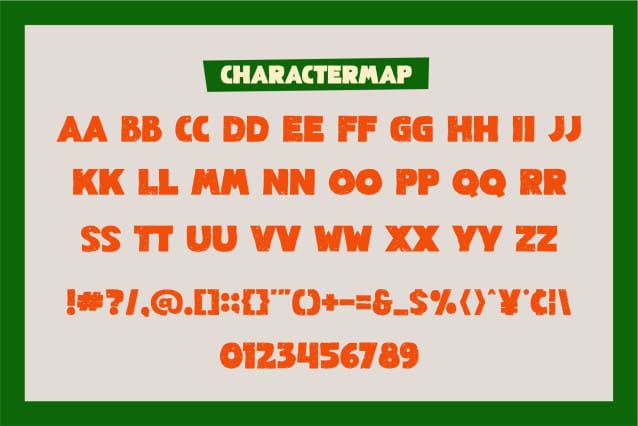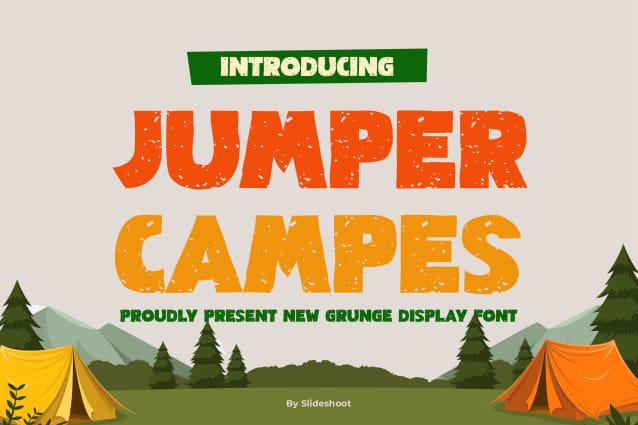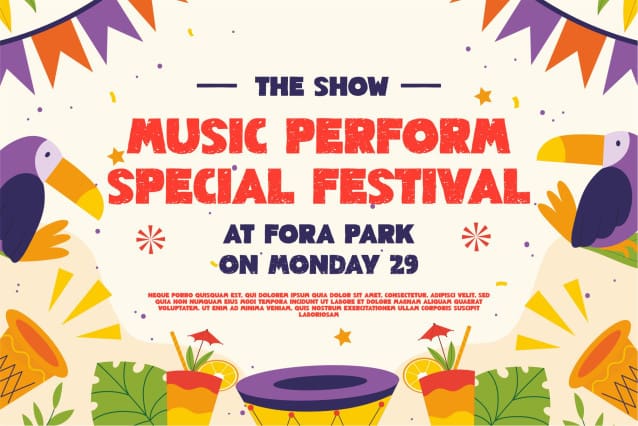
Jumper Campes Font
Jumper Campes Bold Unique Display Font is a modern, trendy, bouncy and cute display font. It has a unique character with wood theme. It is perfect to be combined with invitation card designs, company logos, movie titles, movie names, business cards, book titles, brand names and various other designs.
Designer Name: SlideShoot